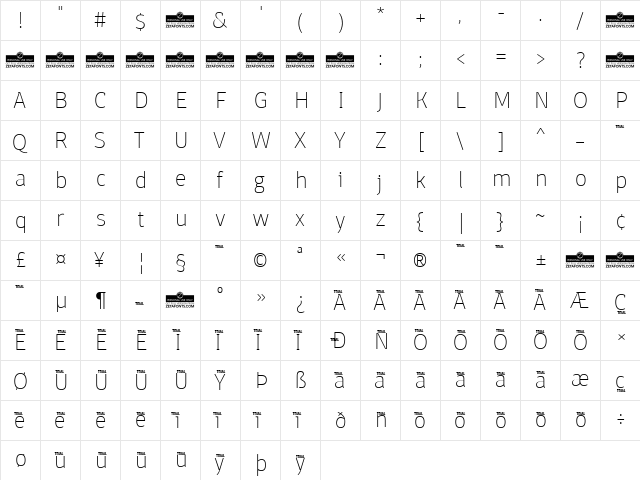
Domotika Trial Thin
| Foundry | Studio Kmzero |
| Designer | Cosimo Lorenzo Pancini |
Design Context for Domotika Trial Typeface
Domotika Trial is a composed and adaptable typeface that performs quietly and consistently across a wide range of design contexts. Its slender proportions lend an understated elegance to any composition.